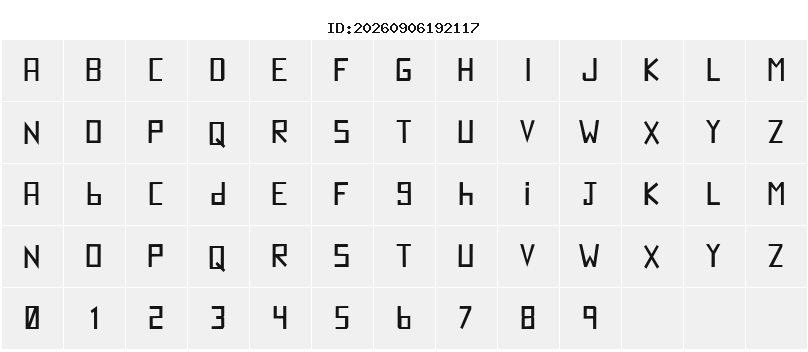
TCLripio.ttf is a modern, elegant sans-serif font designed for ultimate readability and visual harmony. Perfect for branding, headlines, web design, and print materials.